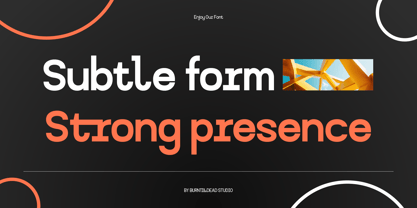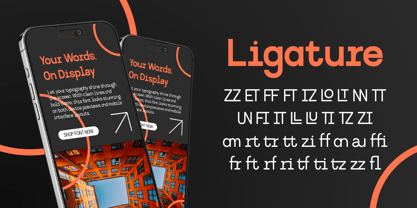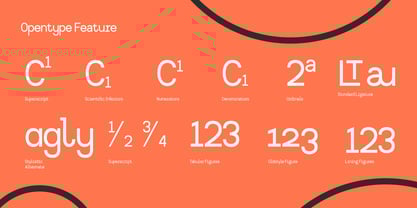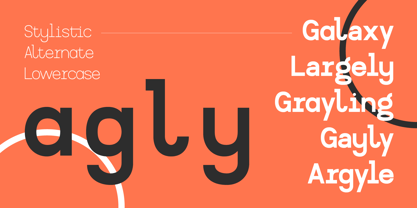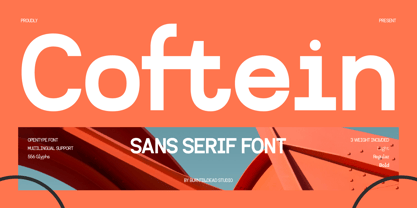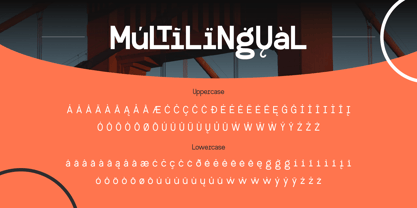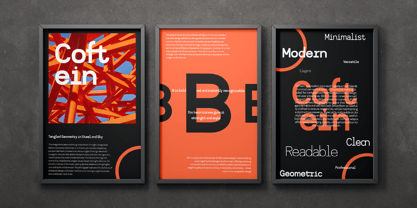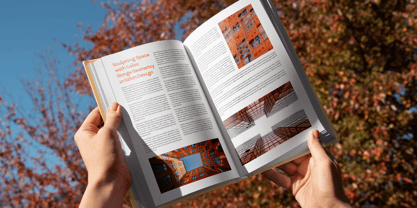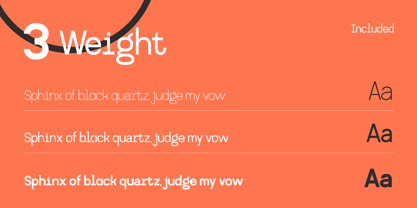
Coftein
par Burntilldead
La famille de polices Coftein a été conçue par Eric Kurniawan et publiée par Burntilldead. Coftein contient 3 styles et options de package familial. En savoir plus sur cette famille
Meet Coftein — a modern sans serif font with a clean, attractive look and thoughtful design. It’s highly readable and has a modern style that works well for both body text and headings. With three different weights: Light, Regular, and Bold make Coftein flexible and easy to mix and match. For the example: the Light weight is great for long paragraphs, while the Bold weight is perfect for headlines. It can look both formal and casual, depending on how you use it.
Coftein is ideal for logos, posters, digital content, social media, UI/UX design, packaging, magazine layouts, and any project that needs other creative projects.
Features:
• Uppercase & Lowercase
• Number
• Punctuation
• Alternate
• Ligatures
• Multilingual
Concepteurs: Eric Kurniawan
Fonderie: Burntilldead